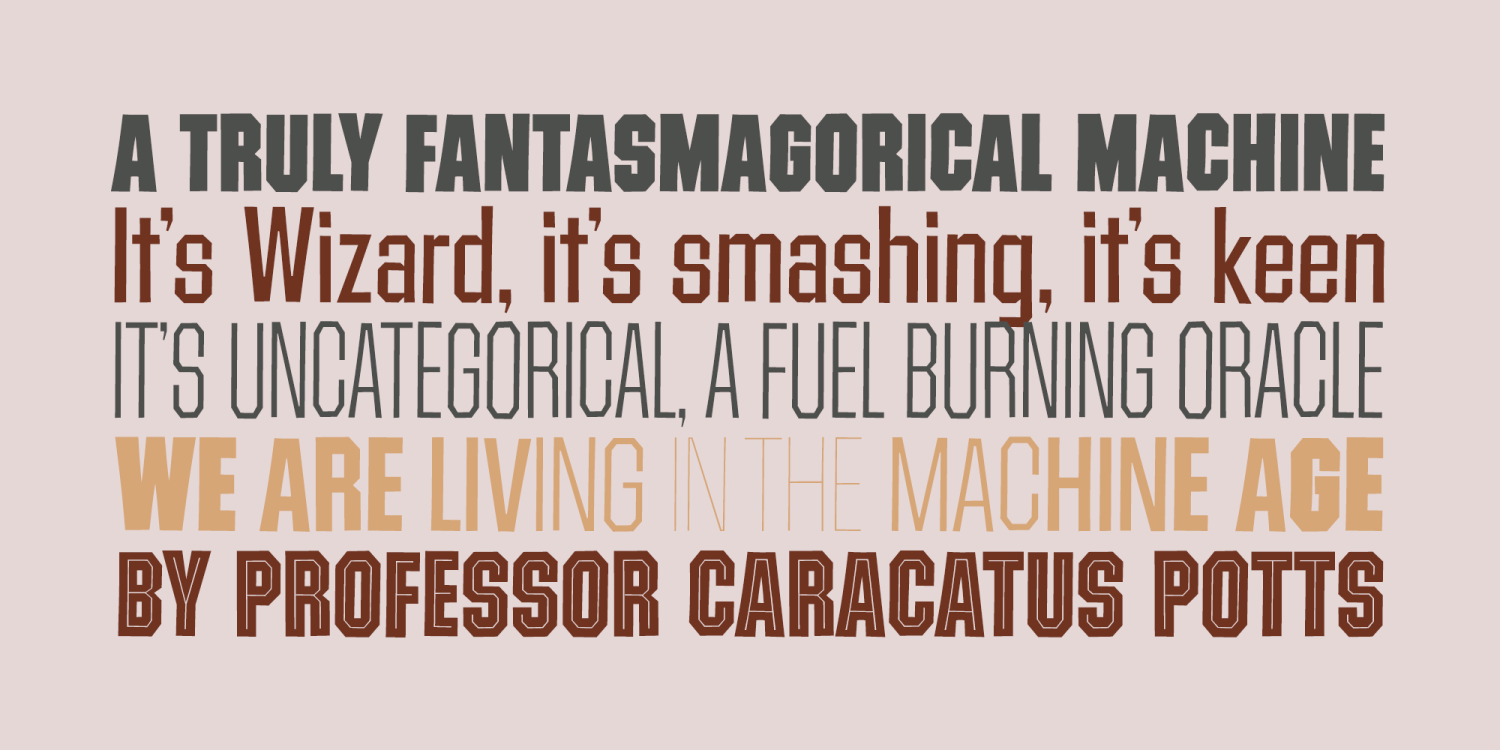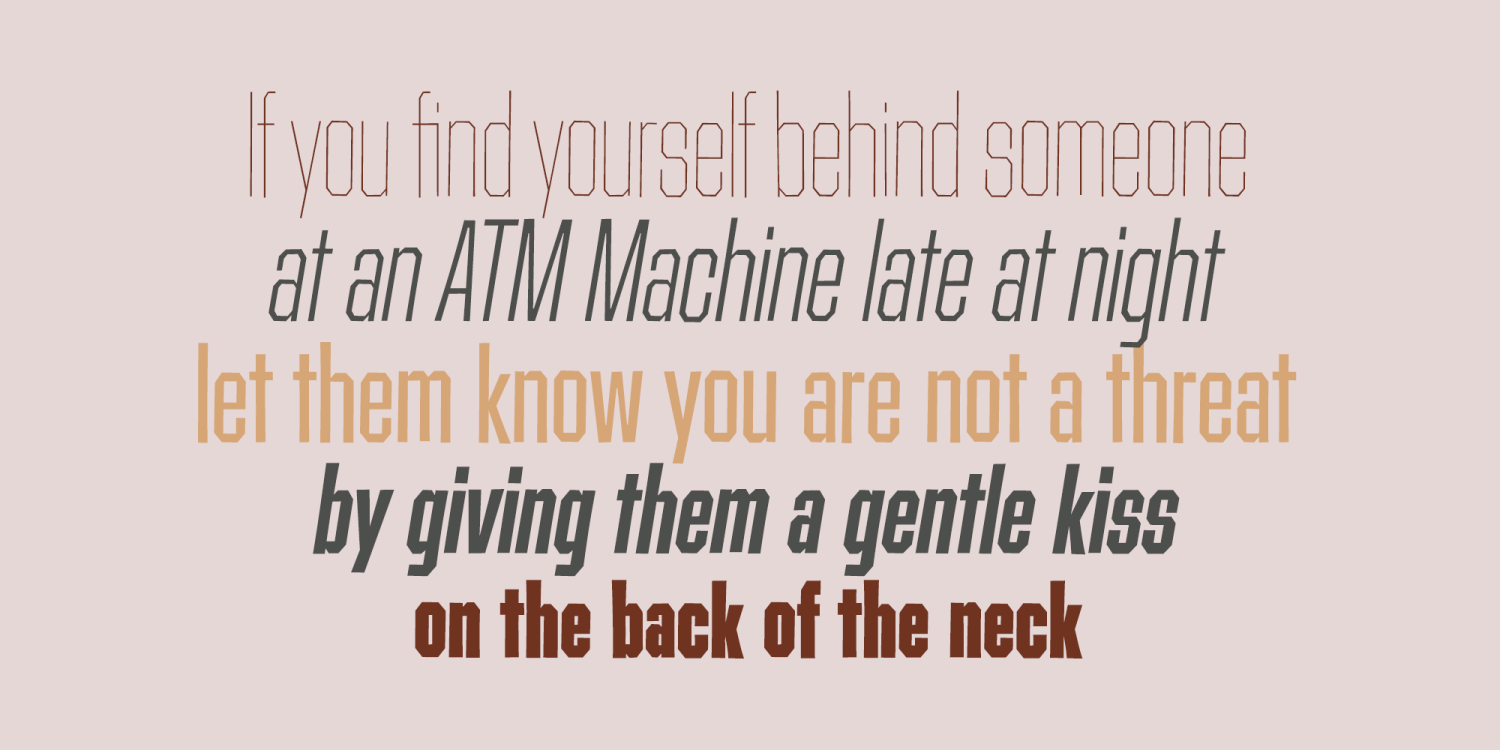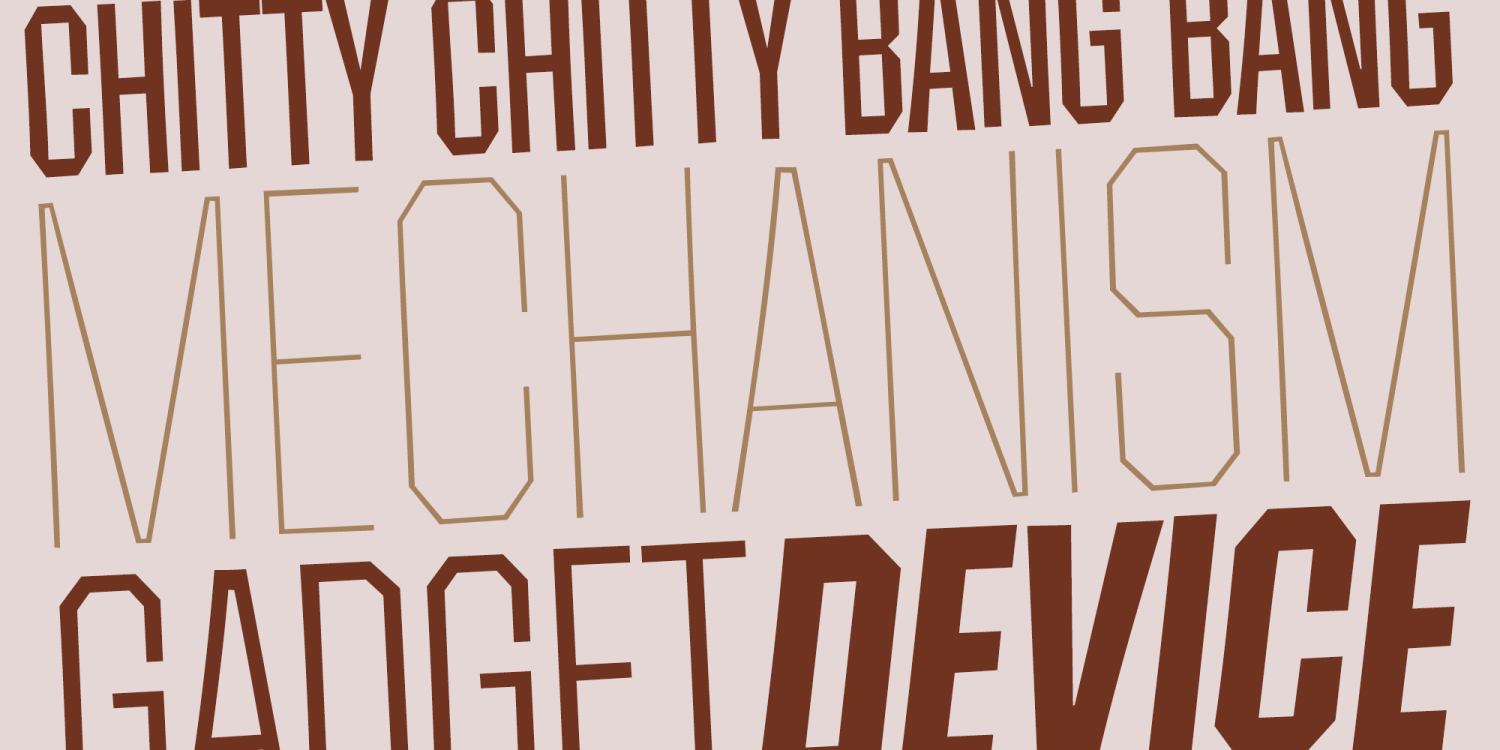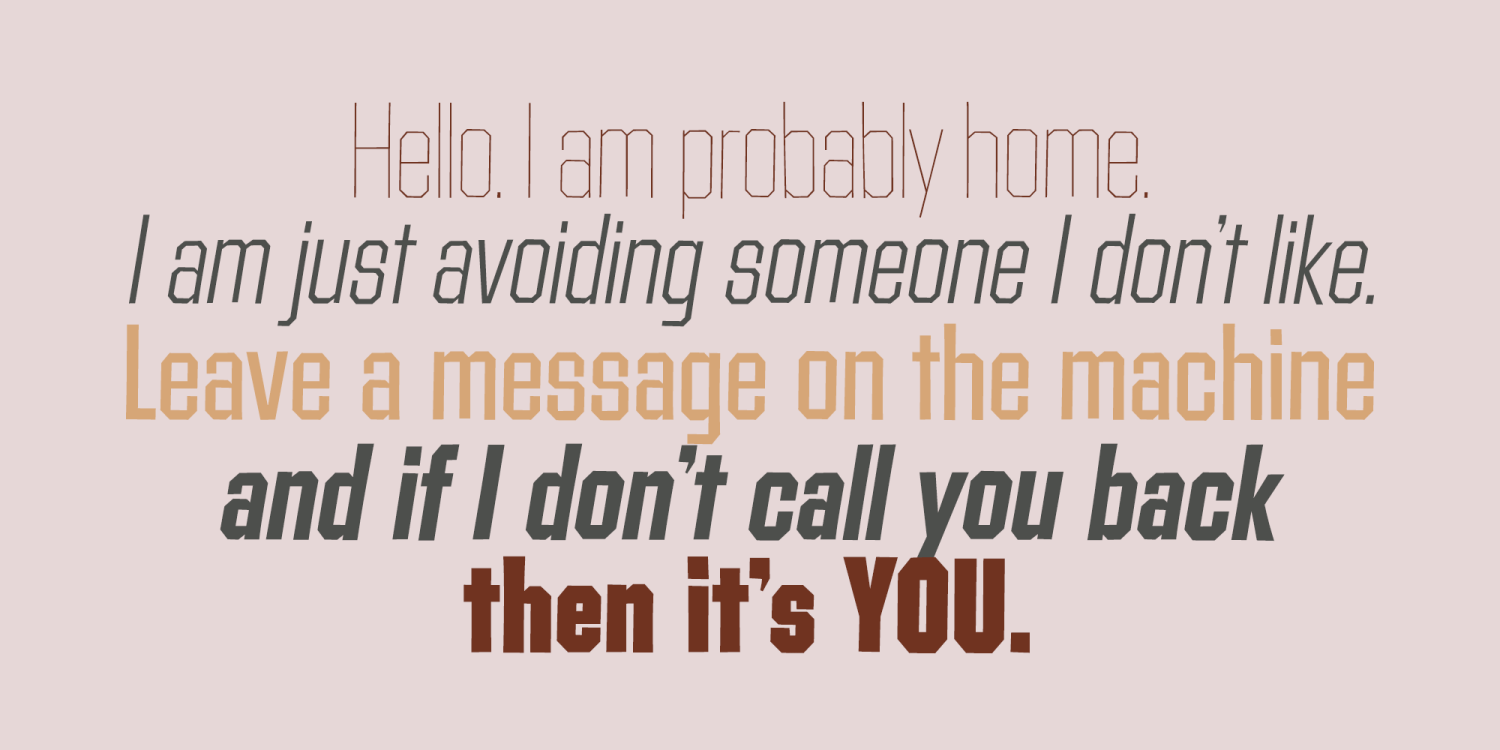
Contraption
Font Family by Pink Broccoli
Slightly off-kilter to give this rigid geometric a little personality, Contraption started as a digitization of a film typeface called Intrigue by Lettergraphics. From there, this mechanical typeface was expanded into a giant family of useful widths, weights, and obliques: from spindly thin and light weights, to chunky bold and blacks. An additional Inline style has been developed to further enhance the family dynamic.